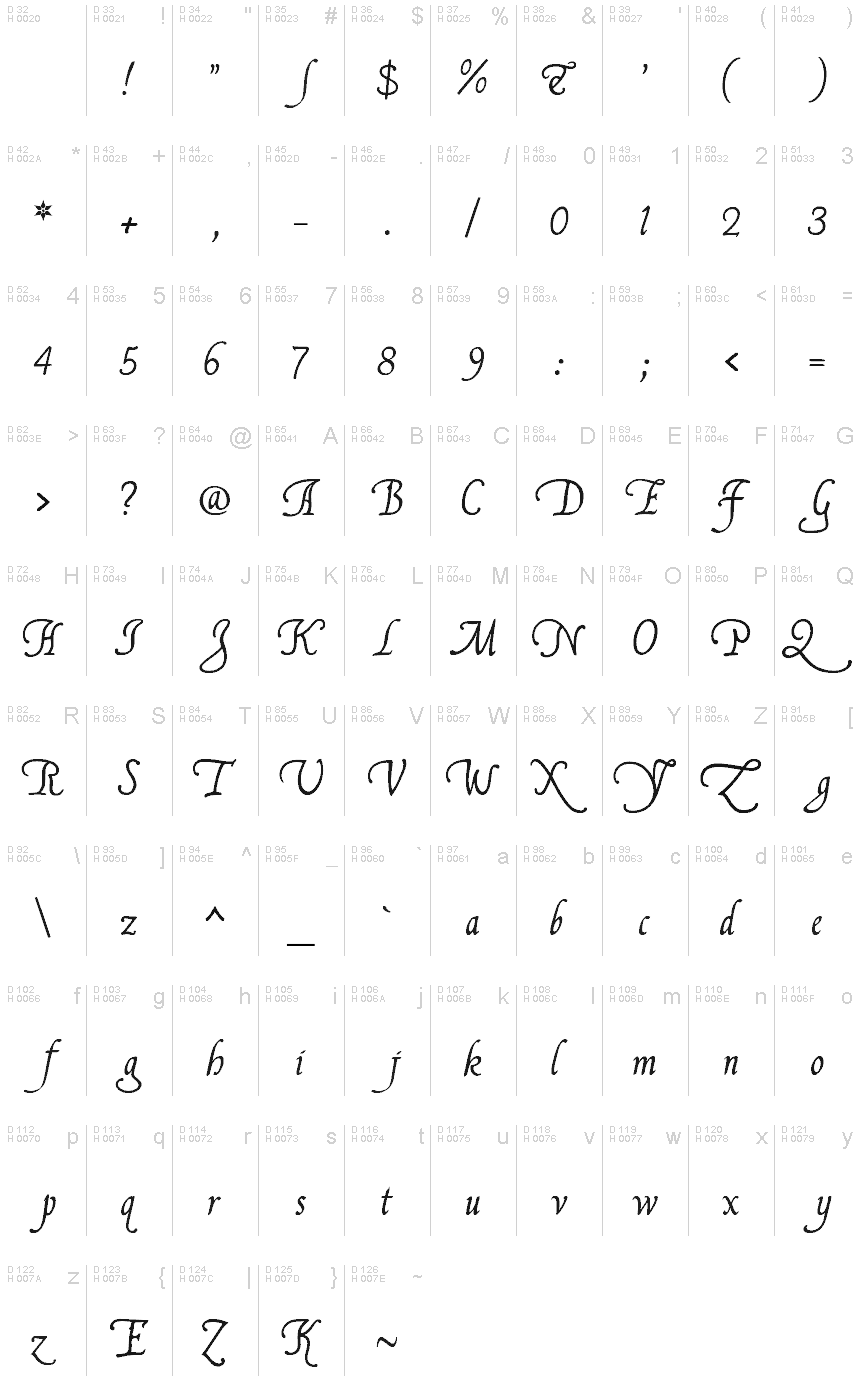
FranciscoLucas Llana
FranciscoLucas Llana font by Pia Frauss is a free calligraphy typeface that channels the sweep and cadence of old handwritten letters. Its ink-like strokes taper from bold, velvety curves into hairline exits, giving every word a sense of movement and ceremony. The rhythm feels distinctly historical—elegant but not stiff—so lines look like they were penned with a real quill rather than generated by a machine.
Using FranciscoLucas Llana, you can bring an authentic, handwritten flavor to wedding invitations, historical novels, certificates, artisan packaging, branding for heritage products, and theatrical posters. This free font shines when set a bit larger, letting the flourishes breathe, and pairs beautifully with a simple serif or understated sans for supporting text.